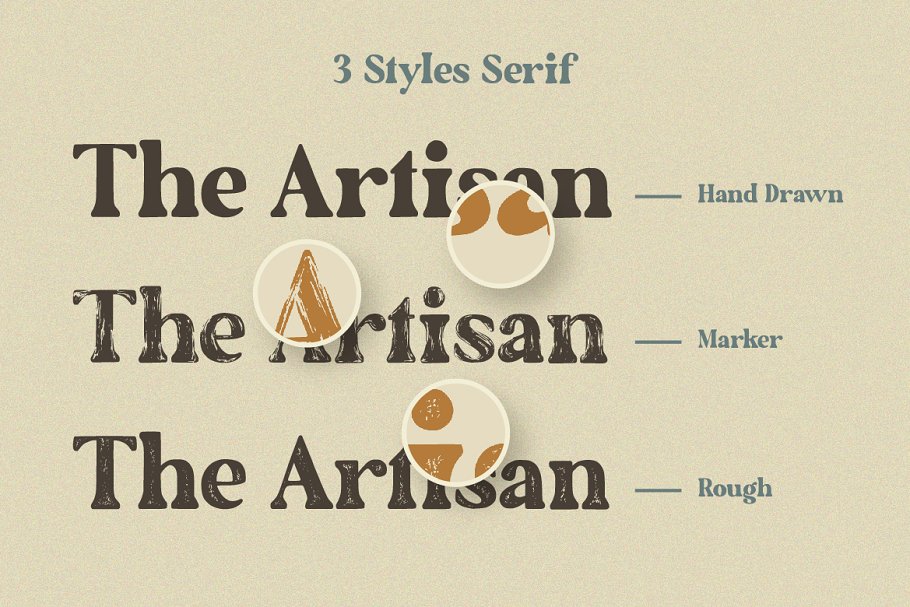
Looking for the best font to use for your signature? Look no further than The Artisan, a hand drawn font duo created by Luthfi Fauzi. This font family includes 3 styles of serif fonts and 1 script font, making it perfect for a wide range of projects, including branding, logos, merchandise, websites, social media, and more.
The combination of both serif and script fonts creates a unique and modern aesthetic that is sure to impress. The Artisan comes complete with a full set of lowercase and uppercase letters, numerals, punctuation, multilingual symbols, ligatures, and extra swashes, making it incredibly versatile and easy to use.
What's more, The Artisan supports a whopping 17 languages, including Afrikaans, Albanian, Catalan, Danish, Dutch, English, Estonian, Finnish, French, German, Icelandic, Italian, Norwegian, Portugese, Spanisch, Swedish, and Zulu. This font truly is a global language.
Whether you're a professional designer or just looking to elevate your personal projects, The Artisan is the perfect font for creating a truly unique and artistic look. Download it now and unleash your creativity.